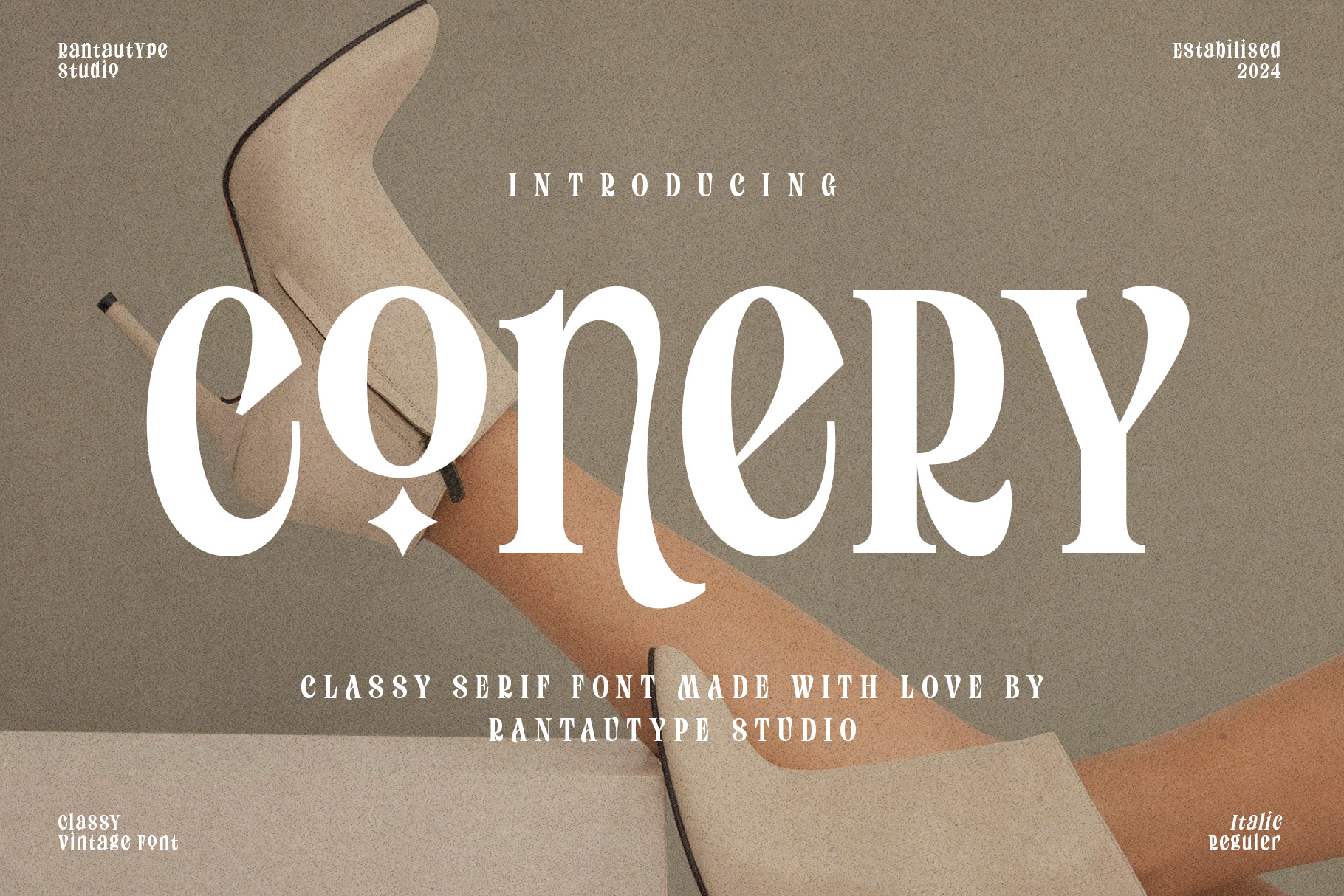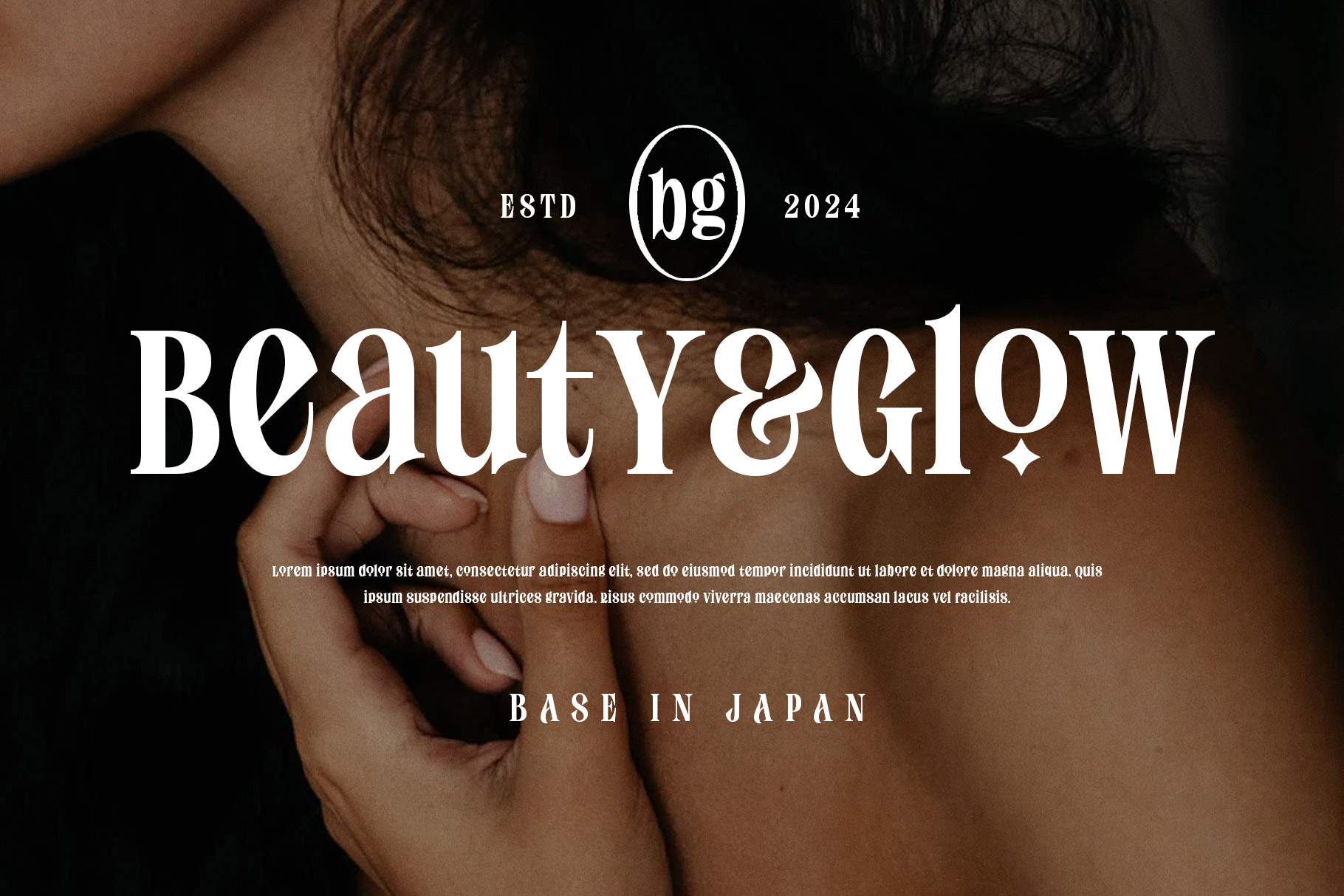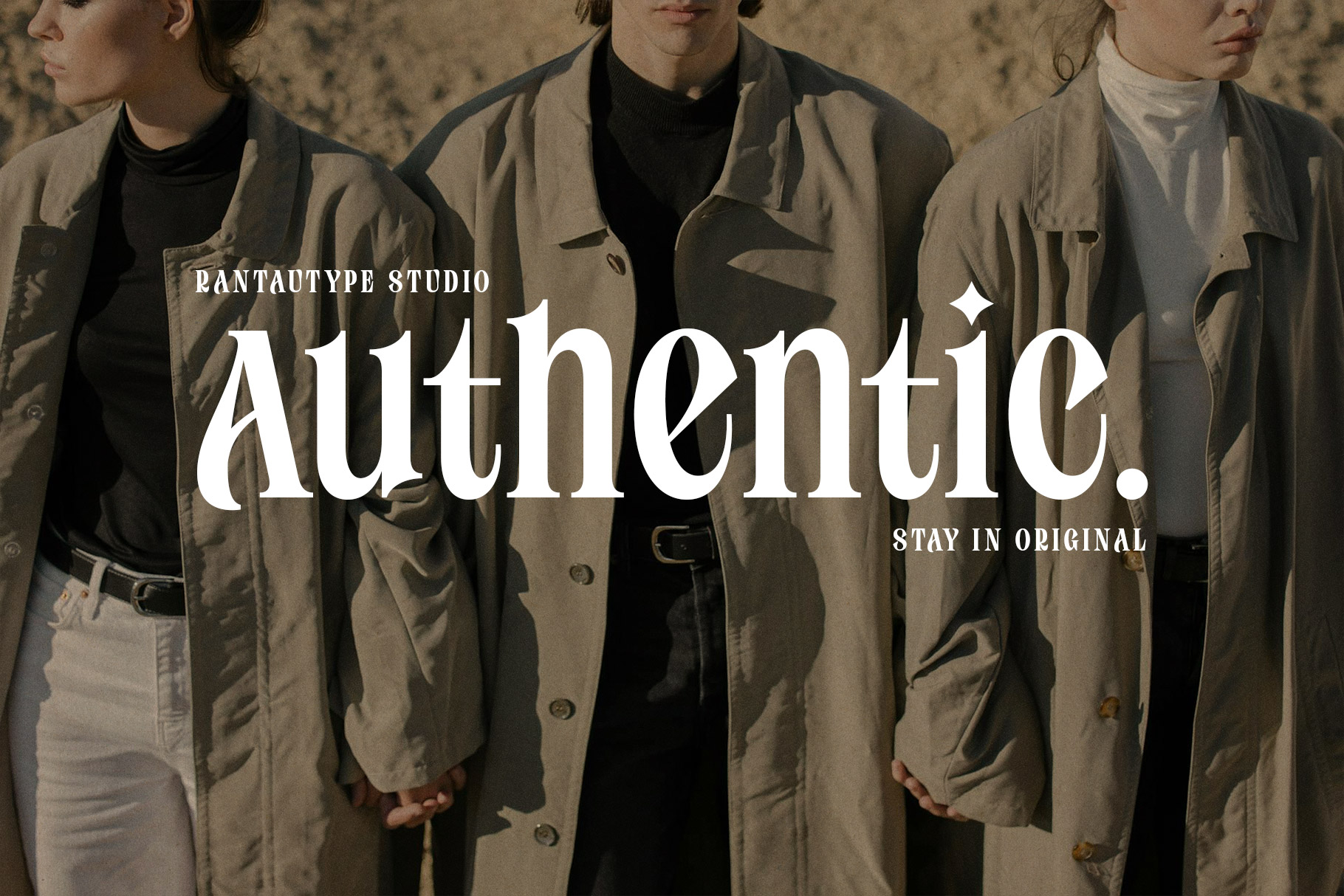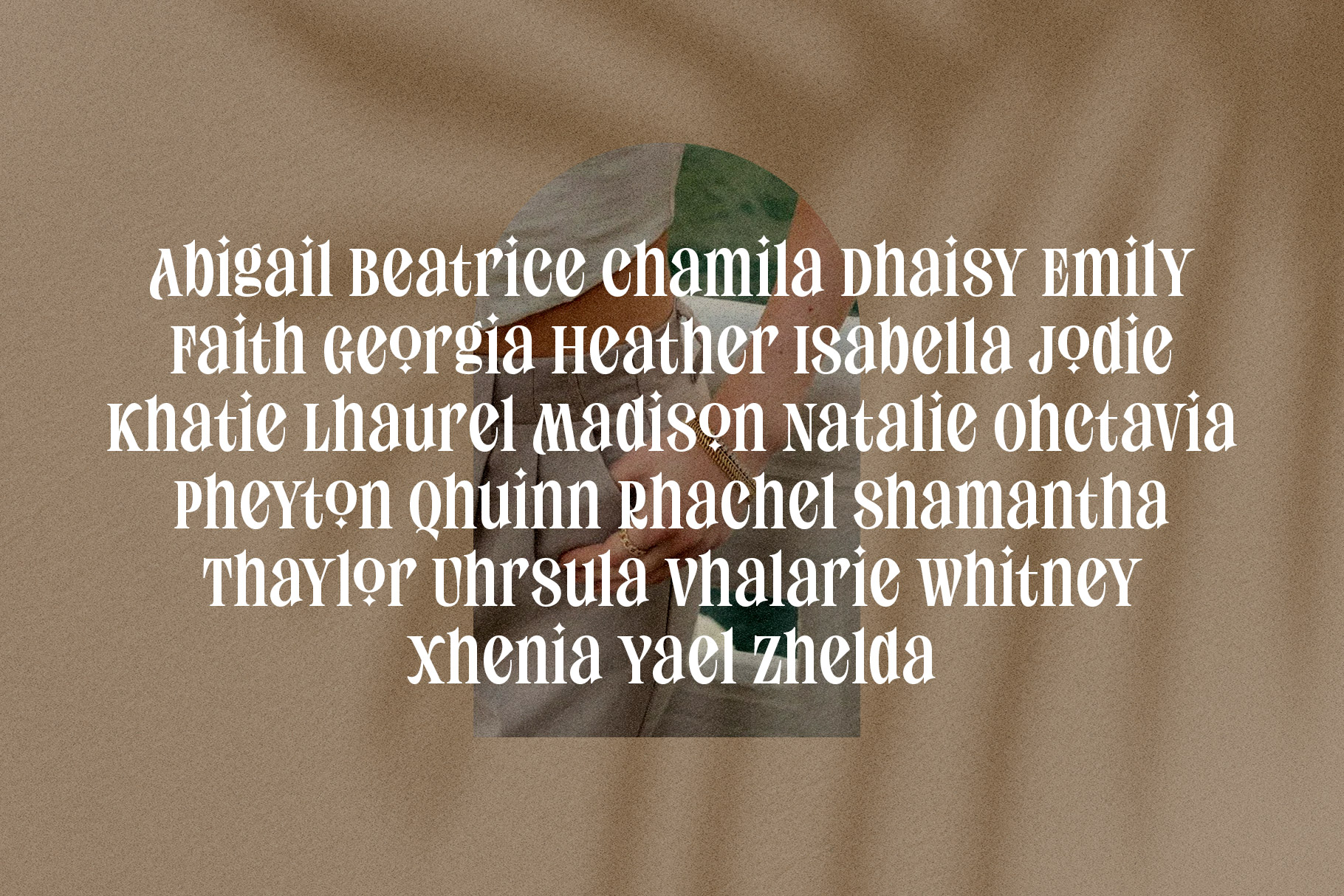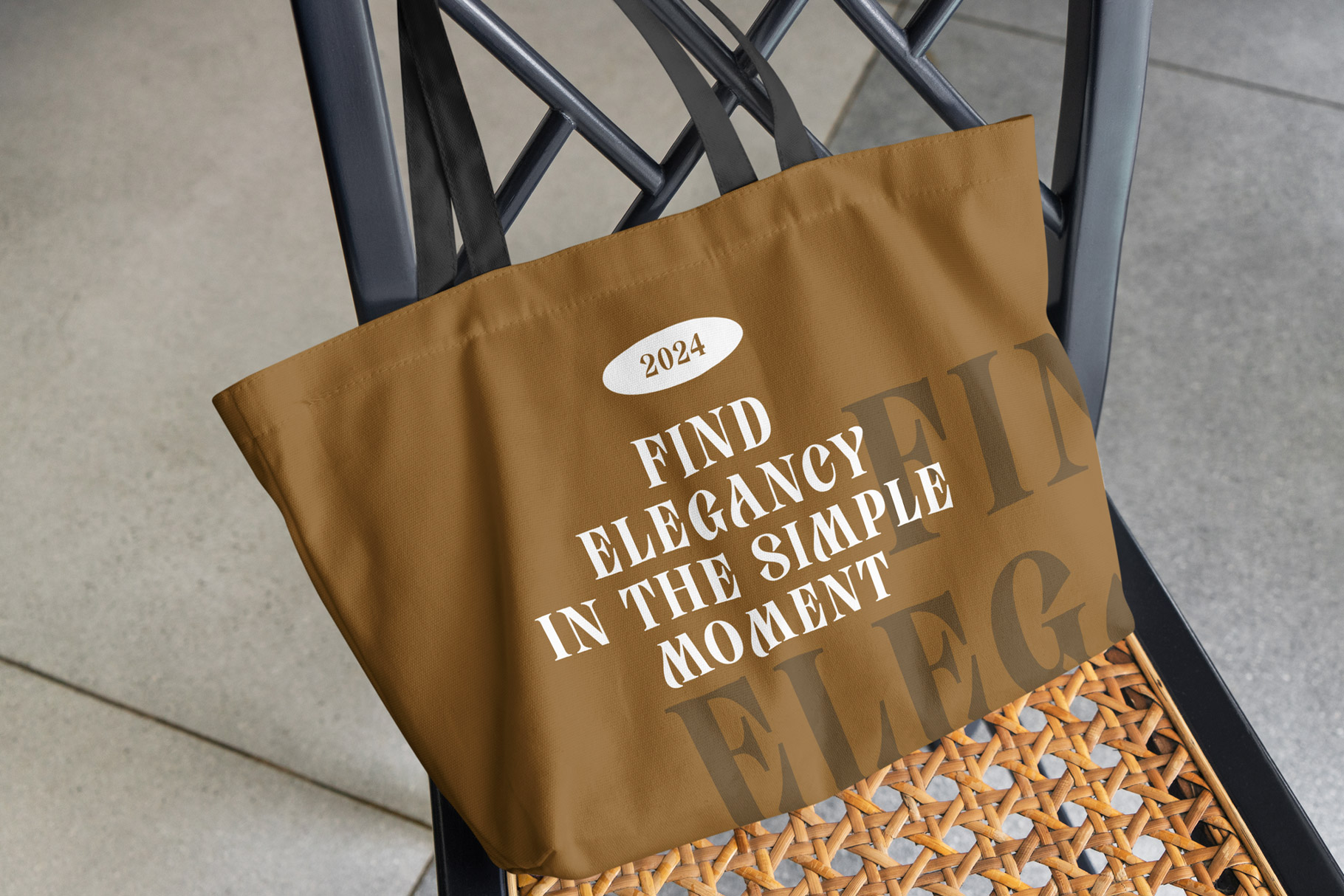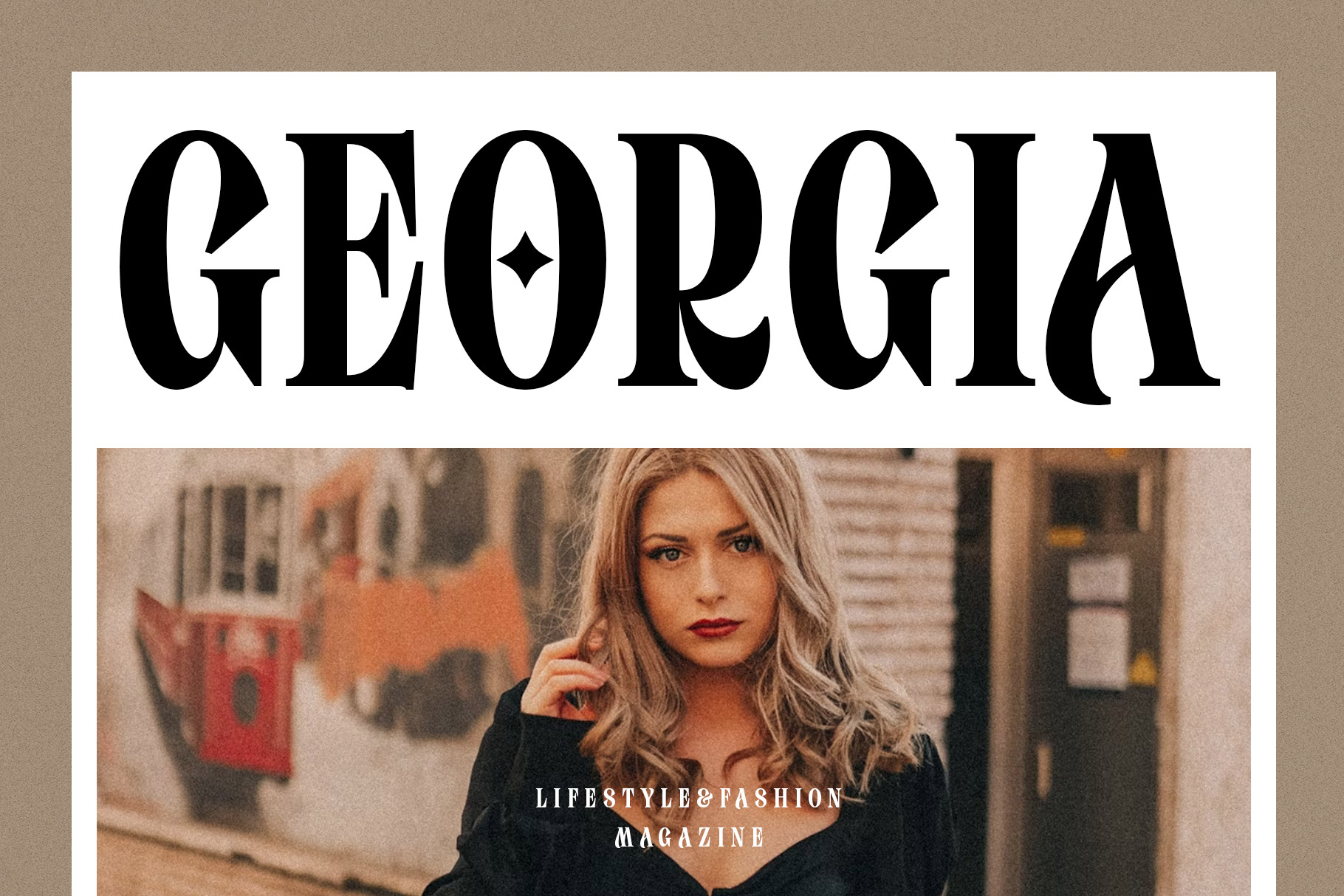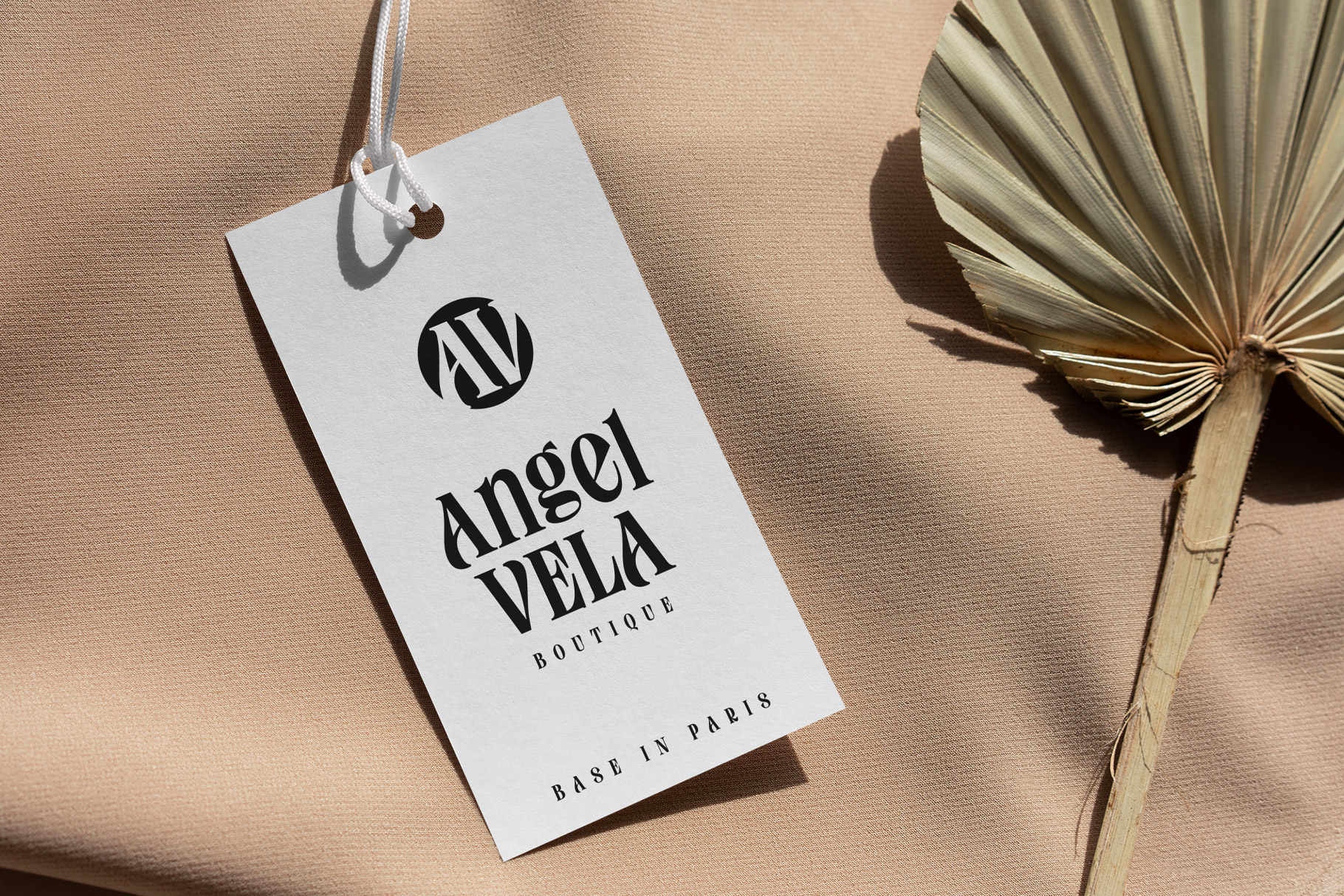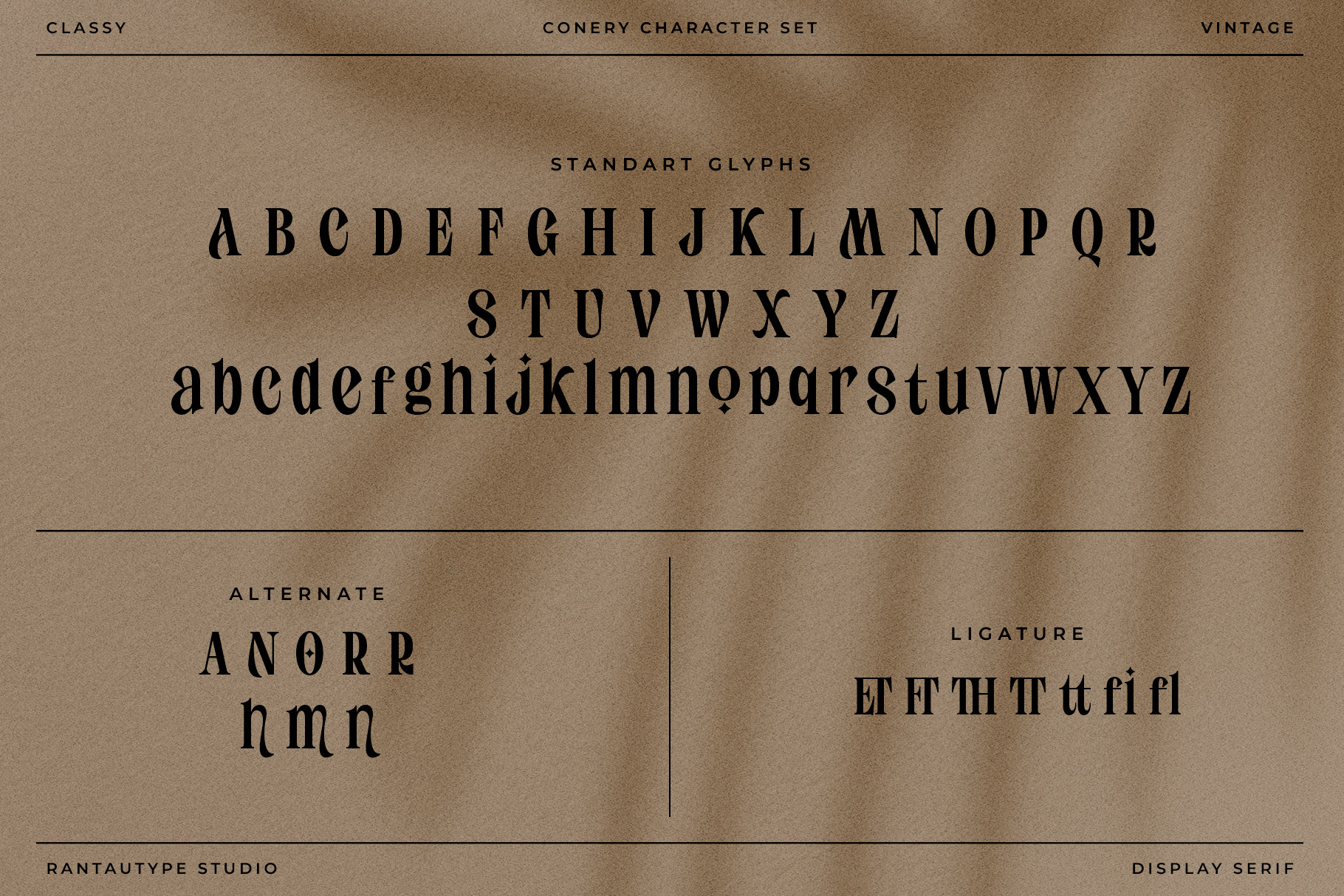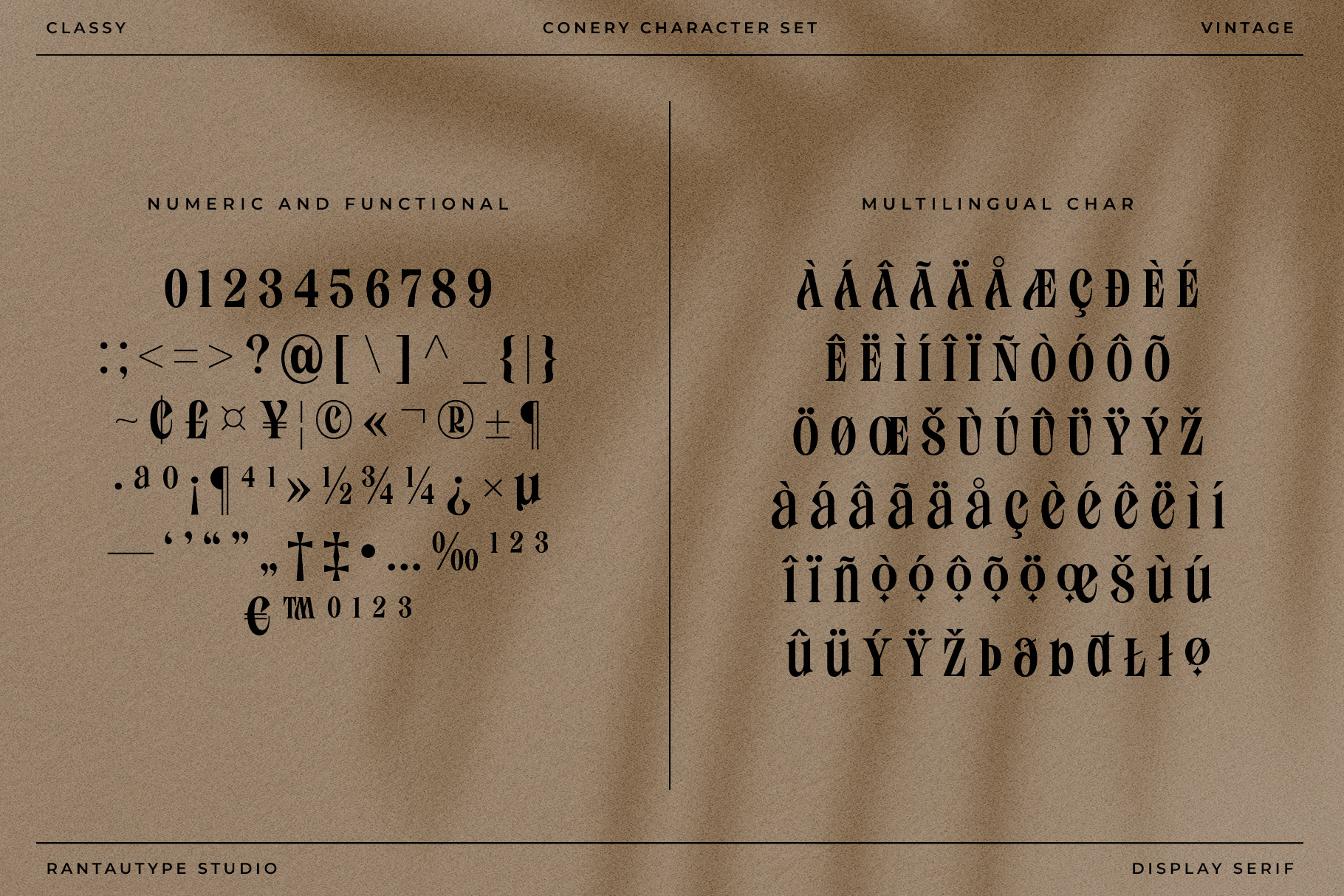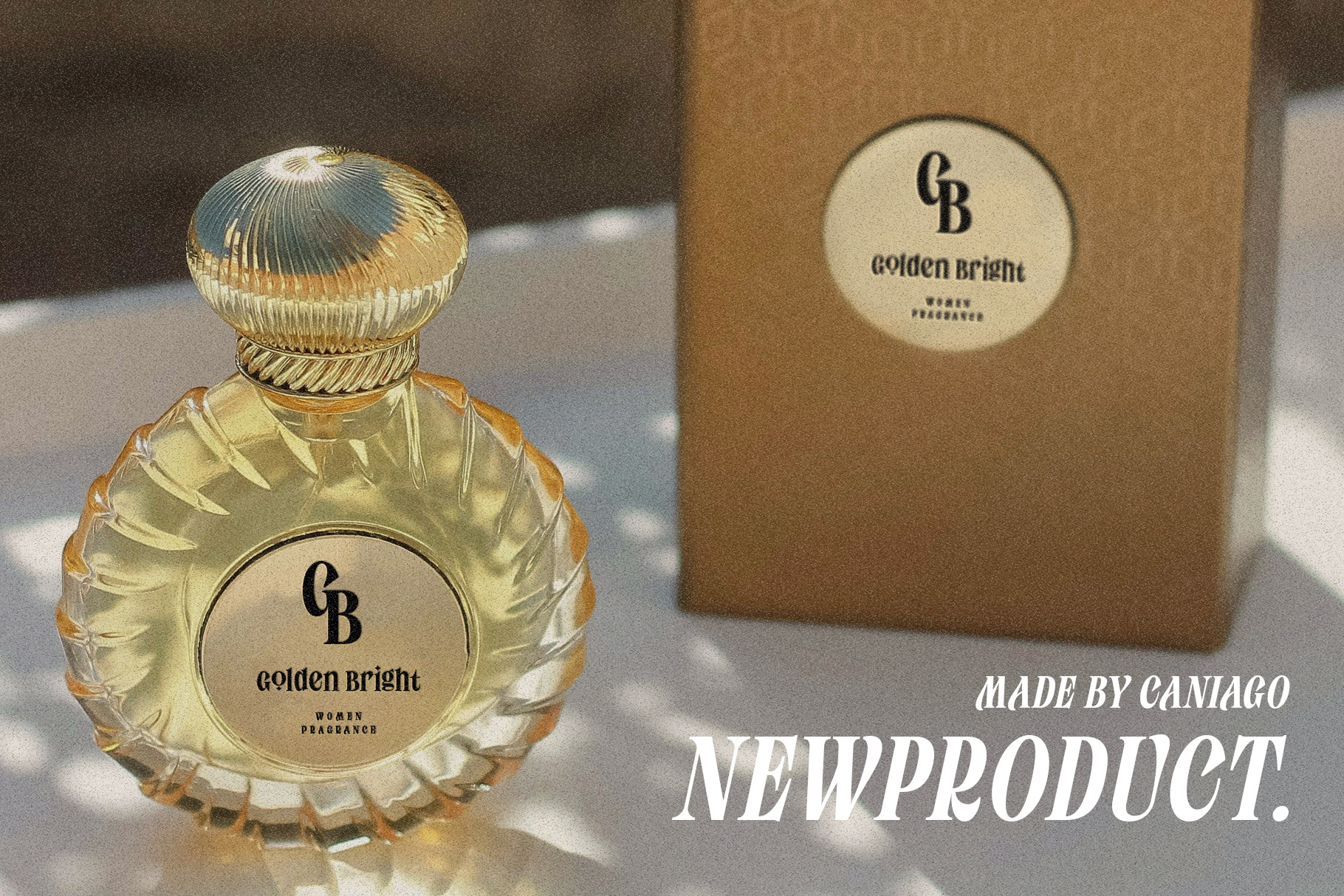
Conery Classy Serif Font
Conery is classy serif font with elegant charm and prestigious shape captures the essence of fashion. Conery is a perfectly choice for any creative endeavor, chic, lifestyle design such as logos, advertisements, stationery, branding project, display and magazine, invitation, corporate brand, product design, label, business project and many other project with elegant touch.